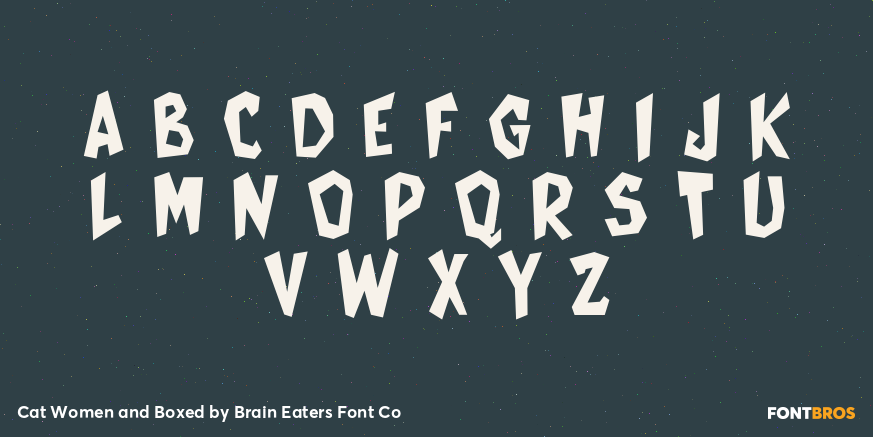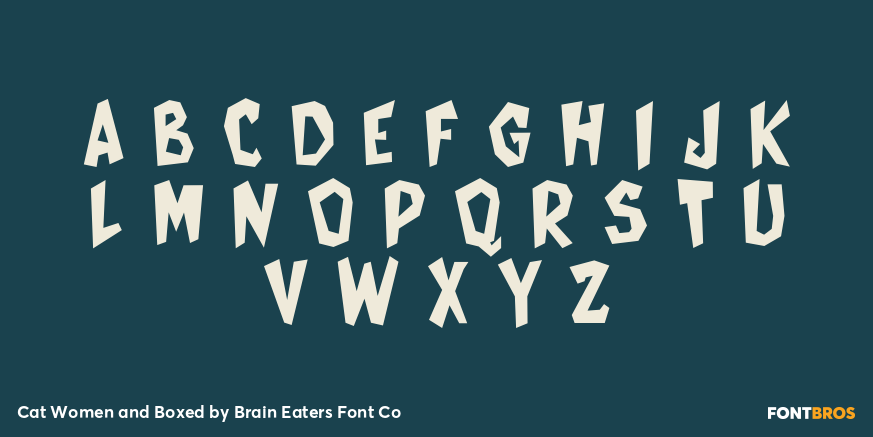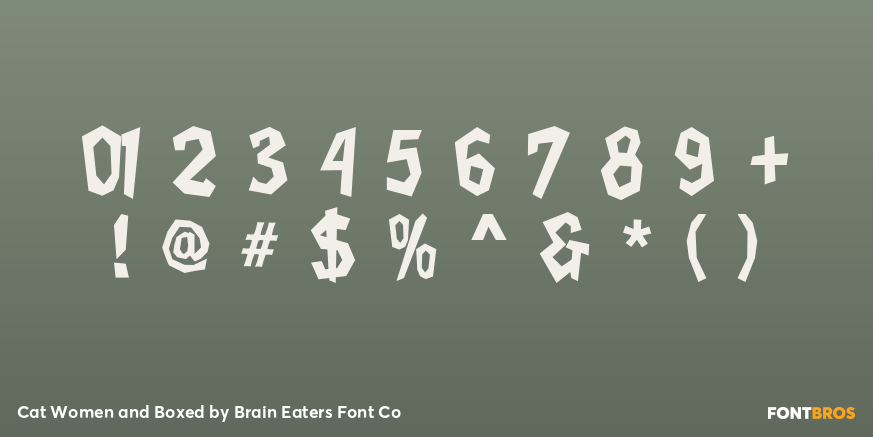
Cat Women and Boxed
Font Family by Brain Eaters Font Co
Cat Women and Boxed is a 2-style display family from Brain Eaters Font Co with a playful retro attitude. Its look leans into fun, wacky vintage character, drawing on 1940s, 1950s, and 1960s references for a bold, attention-grabbing impression.
The family includes Cat Women Regular and Cat Women Boxed, giving you two related ways to work the same spirited voice. That makes it a smart fit for posters, novelty packaging, throwback branding, themed graphics, and other display settings where a quirky retro feel helps the message stand out.
If you're after lettering with a lighthearted mid-century vibe, this set brings personality without feeling overly fussy. Use it when you want headline text that feels energetic, nostalgic, and unmistakably fun.